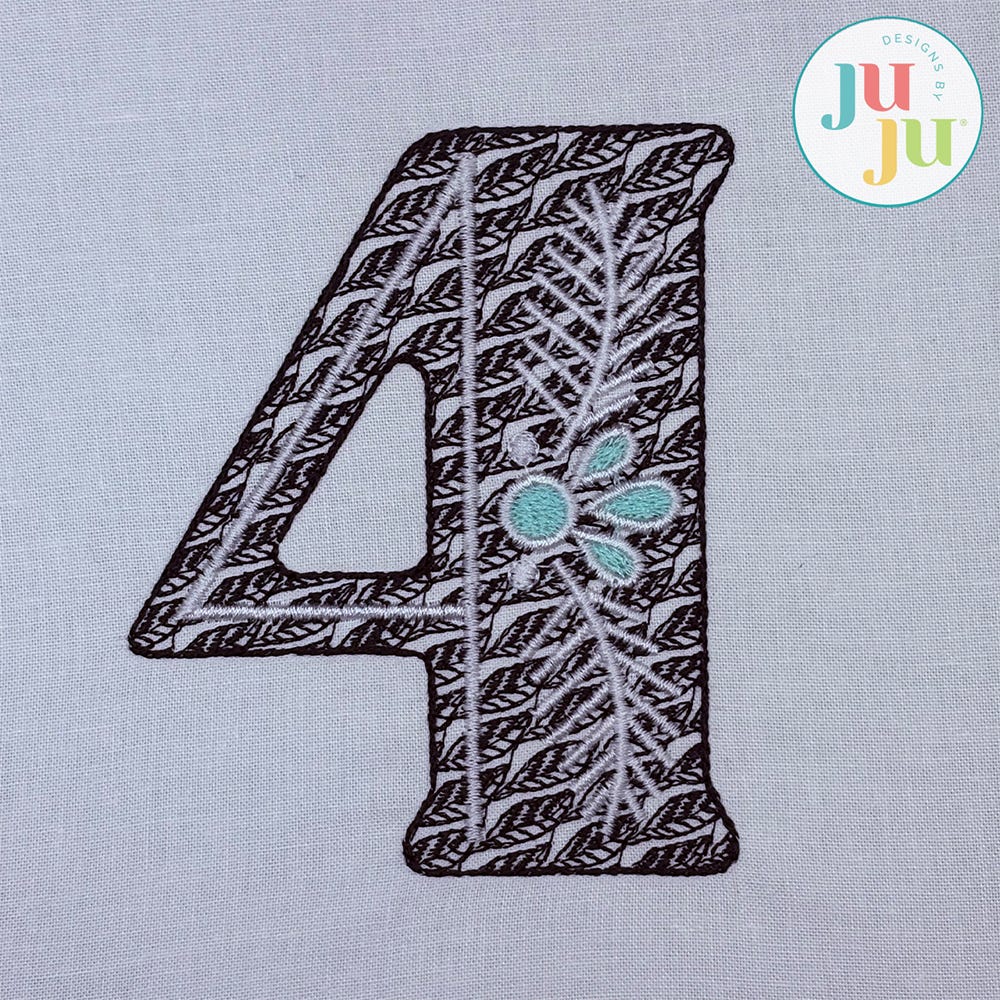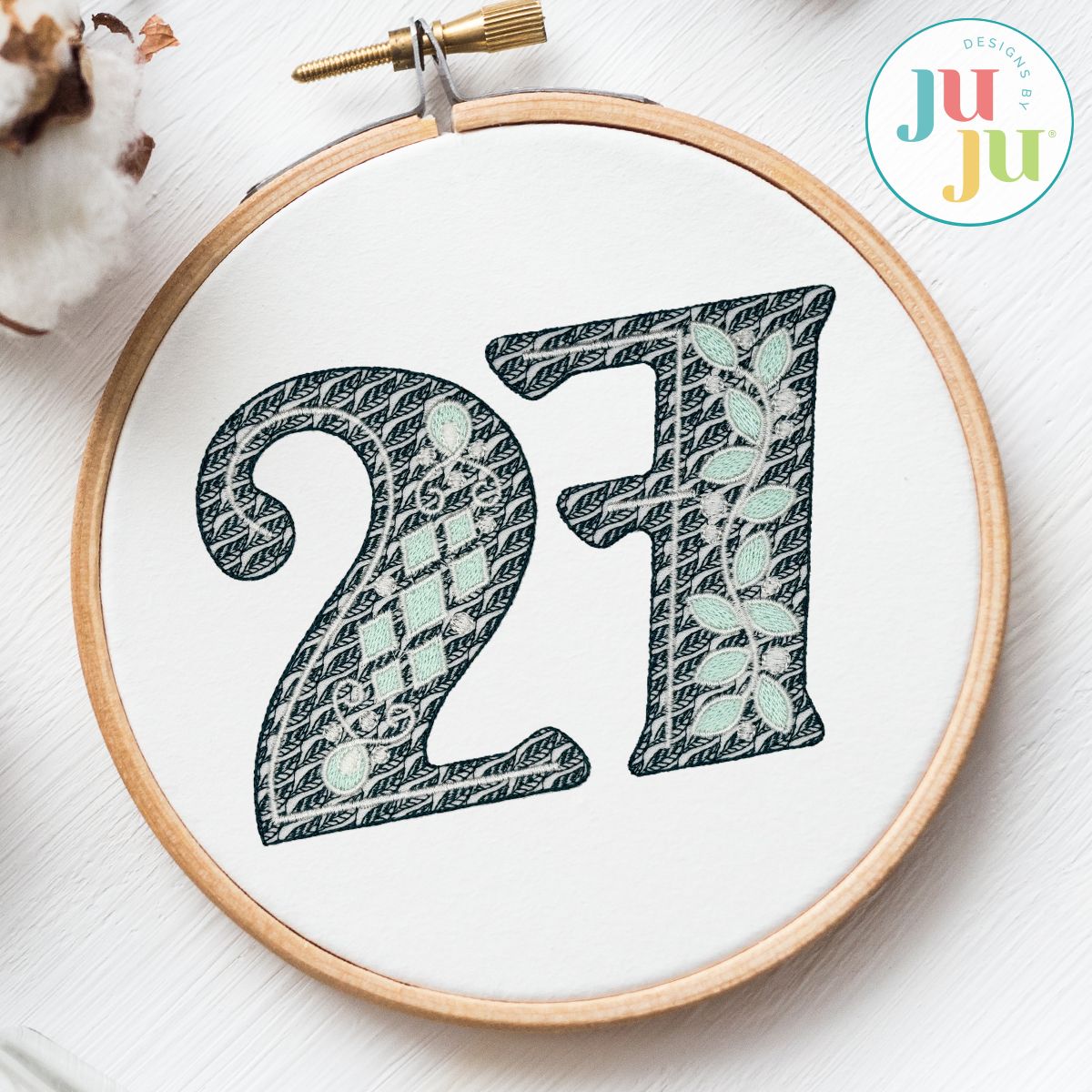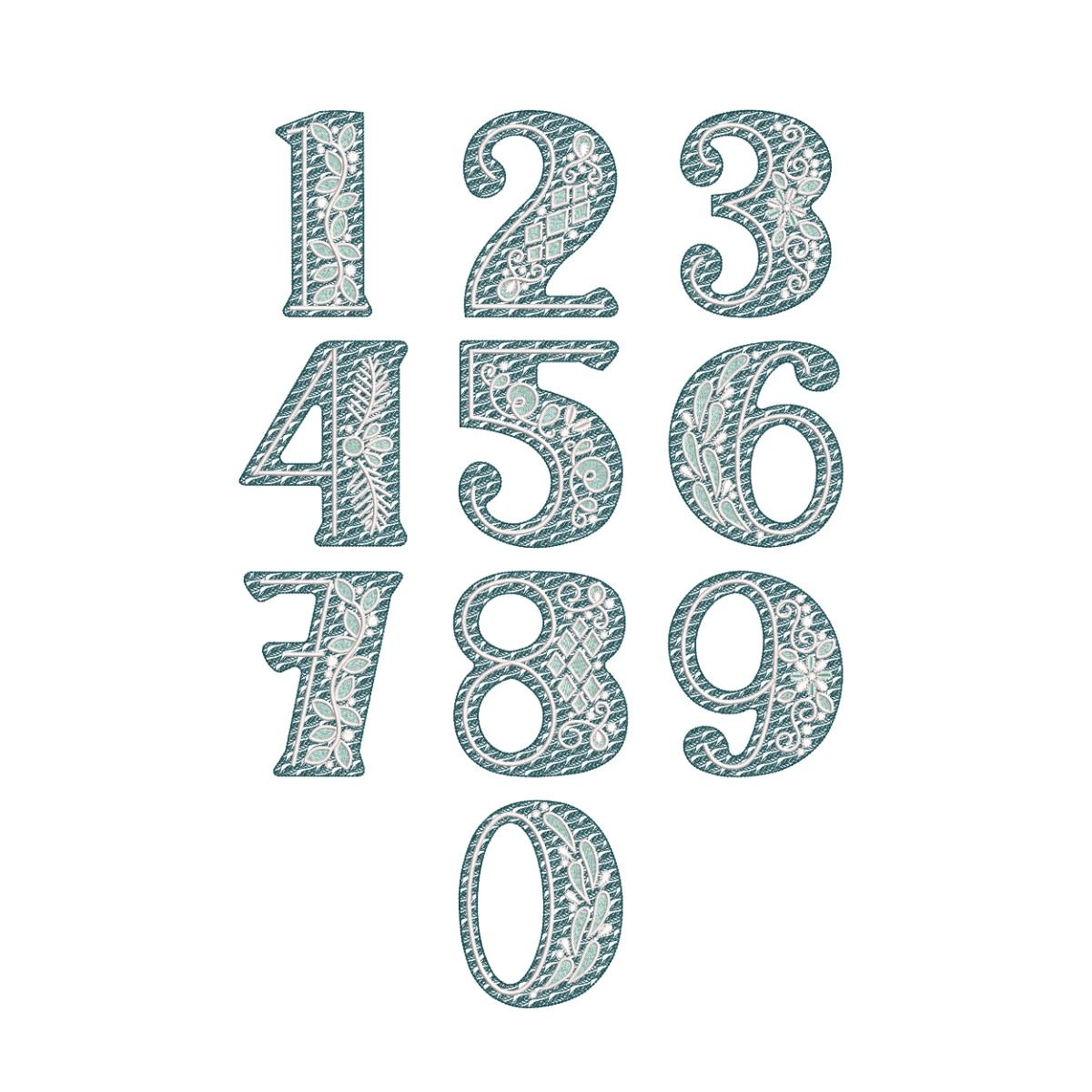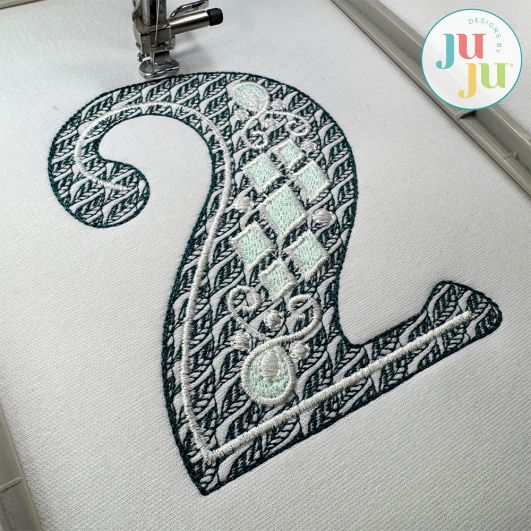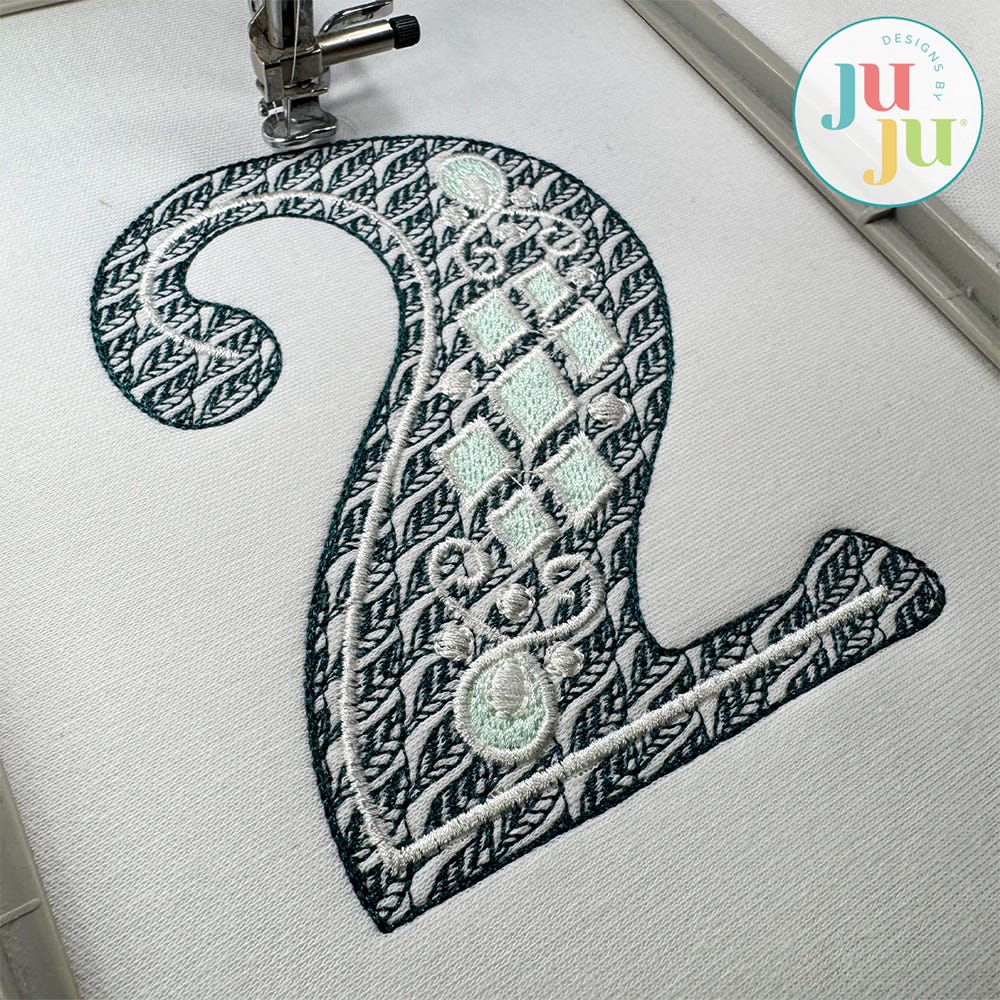
Flourish Bold Motif Filled Embroidery Numbers
Our embroidery-only Flourish Numbers are BOLD in both style and detail!  Each number features a gorgeous leaf pattern motif fill stitching, topped with beautiful swirls, flourishes, and other decorative accents. Perfect for birthdays, anniversaries and more!